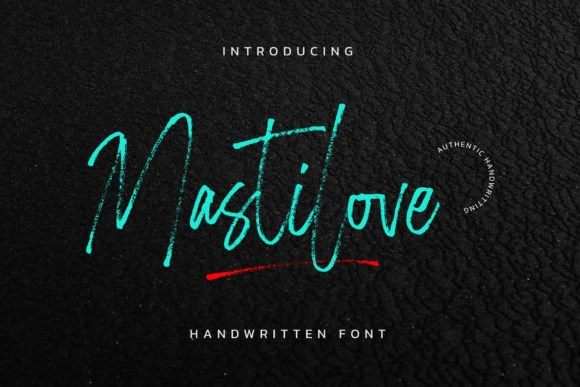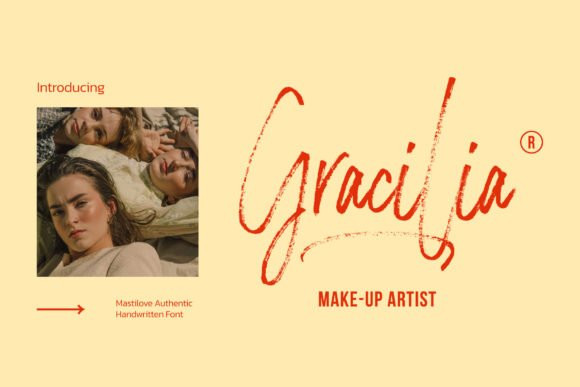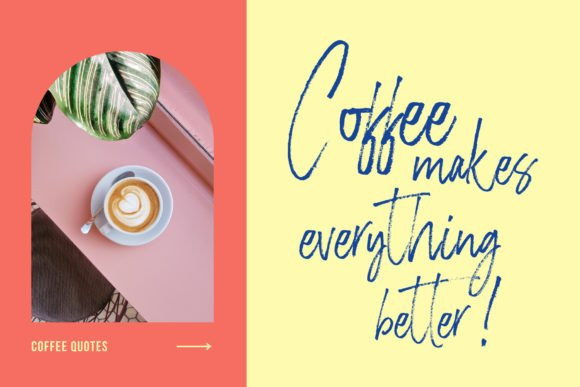
Mastilove Font
Mastilove is a cute and brushed handwritten font. This gentle font will look gorgeous on a variety of design ideas. It will add a joyful and romantic touch to each of your projects!